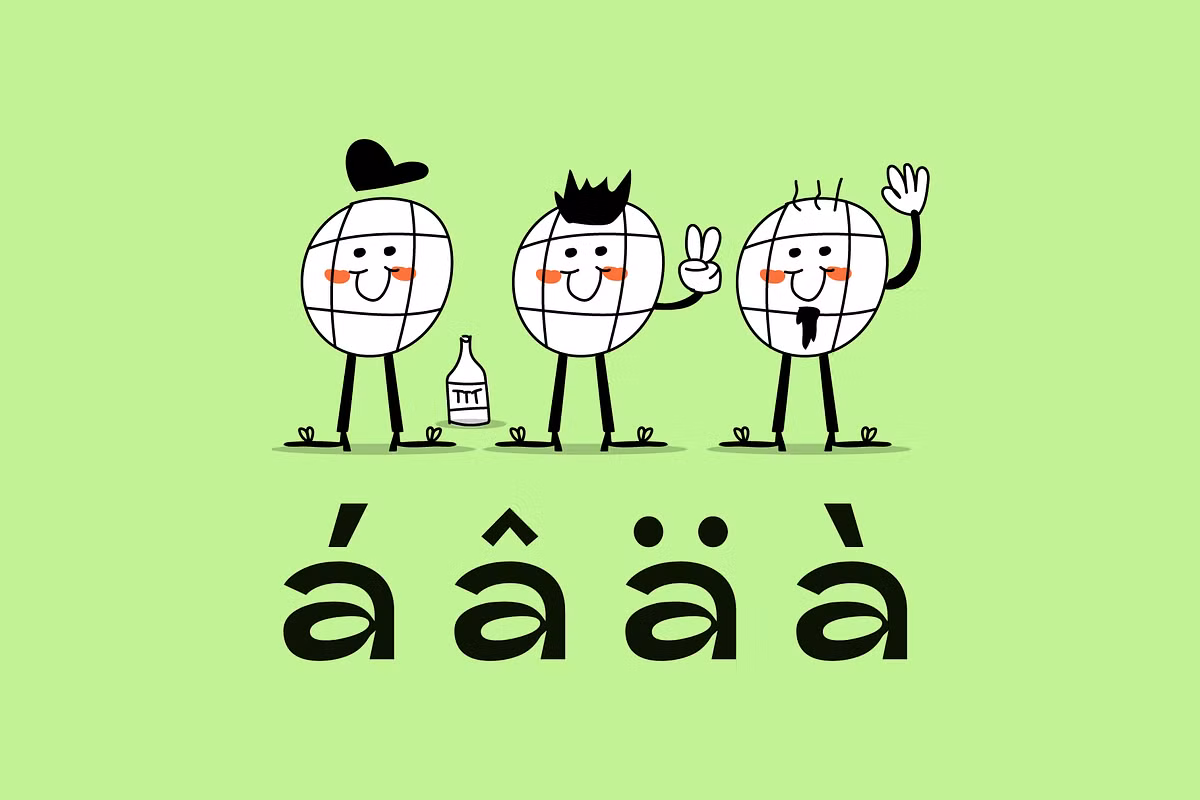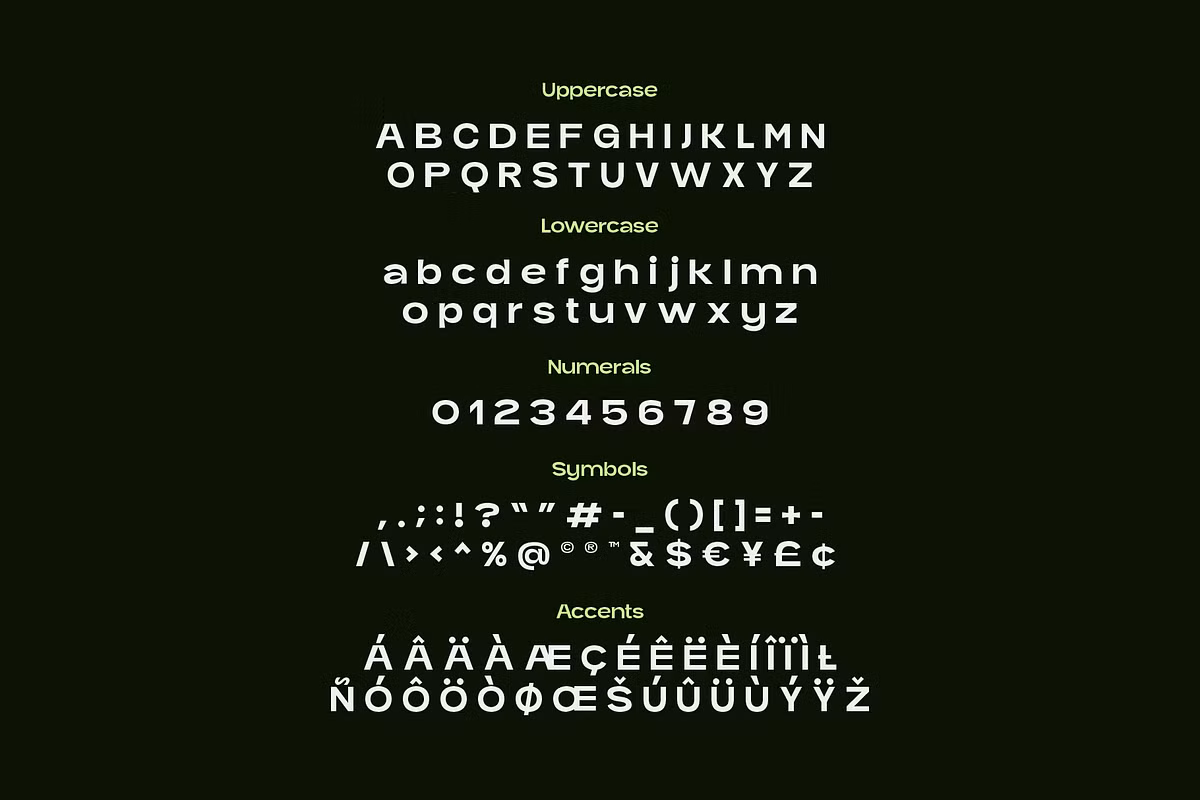
Asfallt Sans: Fun and Funky Typeface with Unique Glyphs
Introducing Asfallt Sans
Meet Asfallt Sans, the newest member of our font family! This sans serif font is really something special – it’s got a lot of personality and a fun, playful vibe. We’re super excited to share it with you, and we think it’s going to be a great addition to your design toolkit. Asfallt Sans is more than just a functional font, it’s also a way to add some personality to your projects. So, whether you’re a graphic designer, a branding expert, or just someone who loves typography, this font is definitely worth checking out. It’s a great way to elevate your designs and add a bit of fun to your work. With its unique look and feel, Asfallt Sans is perfect for anyone who wants to make a statement with their typography.
Colorful representation of Asfallt Sans typography
Visual representation of Asfallt Sans typeface.
Design Style of Asfallt Sans
Asfallt Sans has a really modern and fun look to it. It’s a sans serif typeface, which means it can be used in lots of different ways. The letters are rounded and have these deeper cuts, called inktraps, that help make the text easier to read and also give it a bit of personality. Overall, Asfallt Sans is great for projects that want to show off their creative side and convey a sense of excitement. Its unique style makes it perfect for designers who want to add a bit of flair to their work. With its versatile design, Asfallt Sans can be used for everything from bold headlines to body text, and its quirky personality is sure to make any project stand out.
Unique Glyphs
One of the standout features of Asfallt Sans is its extensive collection of fun-looking glyphs. These unique glyphs contribute to the overall character of the typeface, allowing designers to play with different styles and add elements of surprise to their typographic compositions. From playful icons to distinctive letterforms, the glyphs in Asfallt Sans invite creativity and experimentation.
Sample of unique glyphs in Asfallt Sans
Examples of unique glyphs in Asfallt Sans.
Character Sets and Weights
Asfallt Sans offers a range of options to suit different design requirements, with three weights and three styles to choose from. You can pick from light, regular, and bold weights, each with its own unique visual effect while still keeping the typeface’s distinct features. This flexibility makes Asfallt Sans a great choice for various uses, such as headings, titles, and body text, allowing you to select the perfect thickness to match your design needs. Whether you’re working on a project that requires a subtle touch or a bold statement, Asfallt Sans has got you covered with its versatile and adaptable design.
Character Set
The Asfallt Sans font has a really big set of characters, including lots of letters, numbers, and symbols. This means you can use it to communicate your message in many different languages and situations. You’ll find all the basic Latin characters, plus accented letters, which makes it a great choice for creating typography that works well in lots of different languages. Whether you’re designing something simple or complex, Asfallt Sans has got you covered with its wide range of characters. It’s inclusive and functional, making it a great option for designers who want to create something that will work for everyone.
Overview of character sets in Asfallt Sans
Overview of character sets available in Asfallt Sans.
Use Cases for Asfallt Sans
With its playful design and extensive weights, Asfallt Sans is suitable for numerous use cases. Here are a few examples:
• Branding: The unique personality of Asfallt Sans is perfect for brands looking to establish a fun and approachable image.
• Marketing Materials: Use Asfallt Sans in brochures, flyers, and posters to grab attention with its distinctive style.
• Website Design: Create engaging web pages with Asfallt Sans for headings and calls-to-action, ensuring they stand out to visitors.
• Social Media Graphics: Make your social media posts pop with the vibrant character of Asfallt Sans, helping to convey your brand’s voice effectively.
Pairing Suggestions for Asfallt Sans
When it comes to pairing Asfallt Sans with other typefaces, the key is to find a balance that complements its playful nature without overwhelming it. Here are some pairing suggestions:
• Serif Fonts: Pairing Asfallt Sans with a classic serif font, like Georgia or Times New Roman, can create a beautiful contrast that balances modernity with tradition.
• Geometric Sans Serifs: Consider pairing it with geometric sans serifs like Futura or Avenir for a clean, contemporary look.
• To give your design a more relaxed and playful feel, try pairing Asfallt Sans with a handwritten font – this will really bring out the fun side of your project.
Asfallt Sans is a really cool and fun typeface that adds a unique touch to any design project. It’s got a modern look and a wide range of characters, plus it comes in lots of different weights, so it’s super versatile. Whether you’re making ads, social media posts, or trying to create a brand that people will remember, Asfallt Sans is a great choice. It can help you make your typography stand out and achieve your design goals. We think you’ll have a blast playing around with Asfallt Sans and seeing all the cool things you can do with it. So go ahead, get creative, and have fun with it!